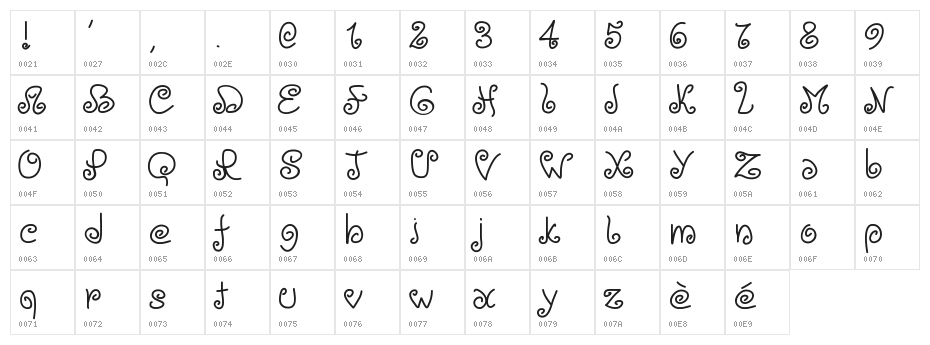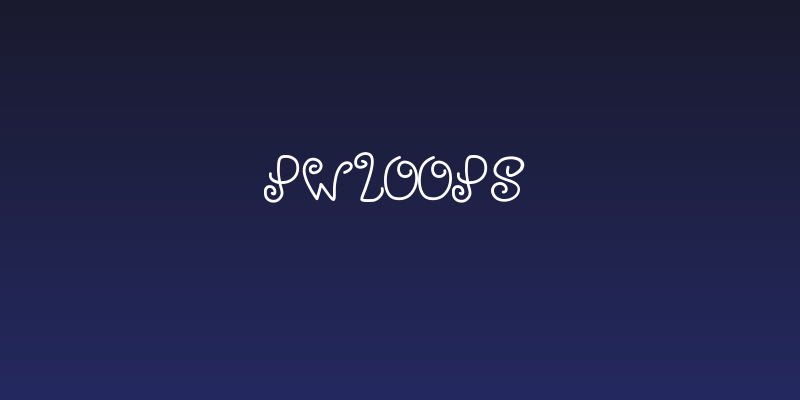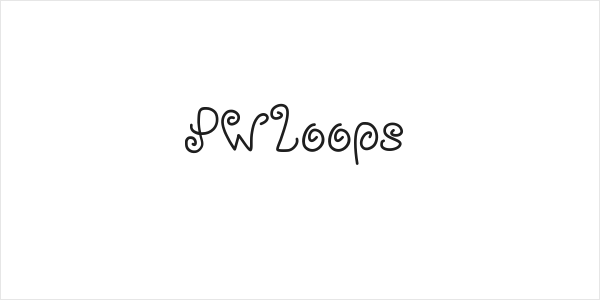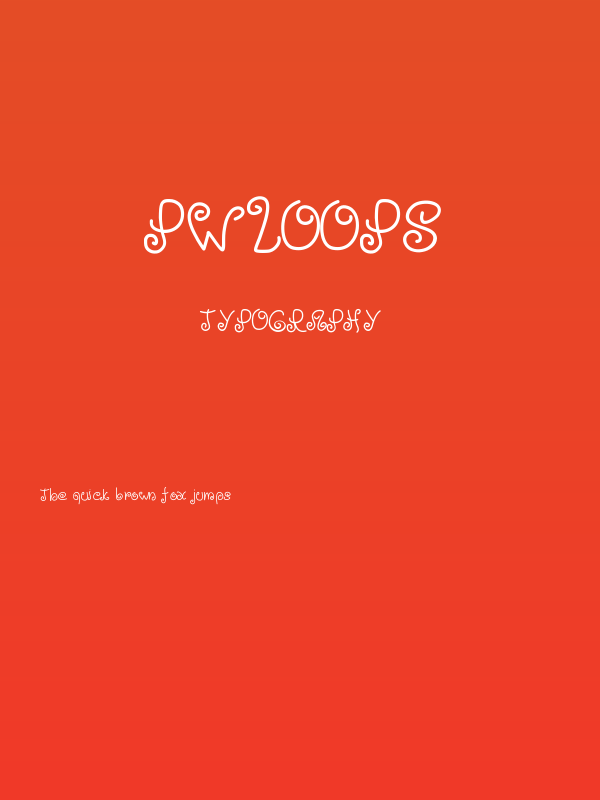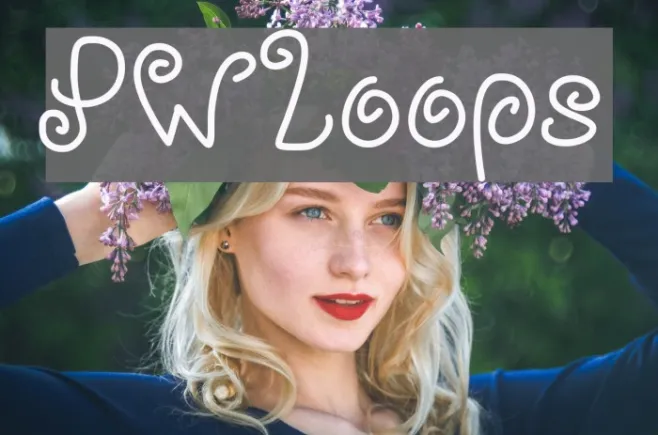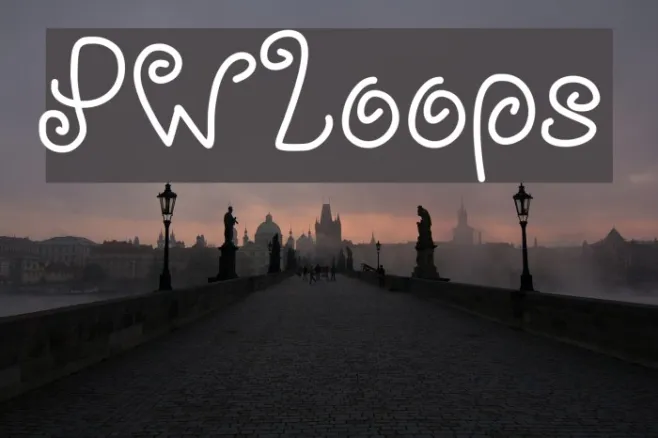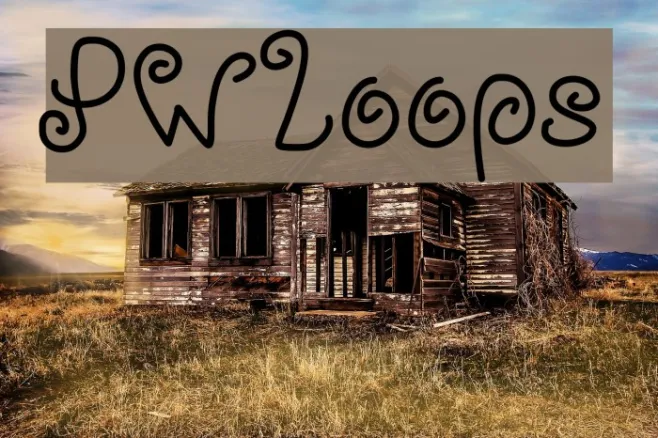
PWLoops Font
PWLoops Description
This font features a whimsical and playful design, characterized by its looping and swirling strokes that create a sense of movement and fun. The uppercase letters are bold and decorative, with each character incorporating unique curls and twists. The lowercase letters maintain the same playful style, offering a consistent look throughout. Numbers and special characters follow the same design principles, ensuring a cohesive appearance. This font is perfect for projects that require a touch of creativity and flair, such as children's books, playful branding, or artistic posters.
PWLOOPS UPPERCASE
PWLOOPS LOWERCASE
PWLOOPS OTHER CHARS
| Proposed Projects | Ideal for children's books, playful branding, artistic posters, and creative invitations. |